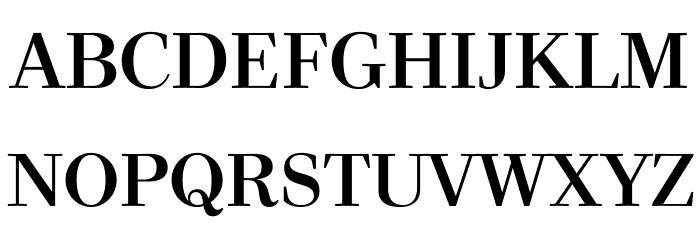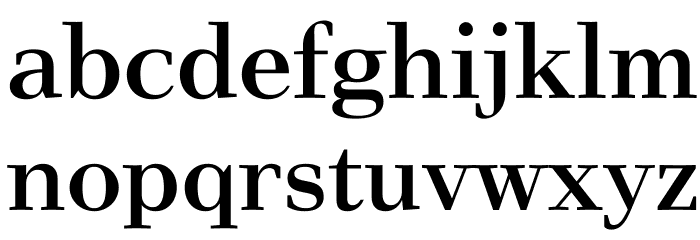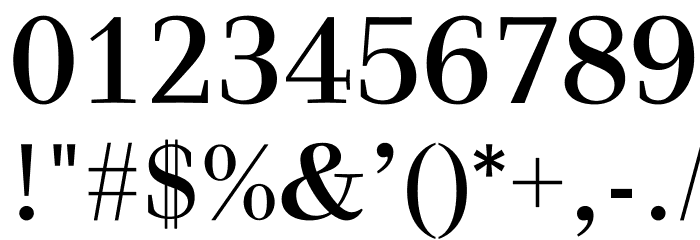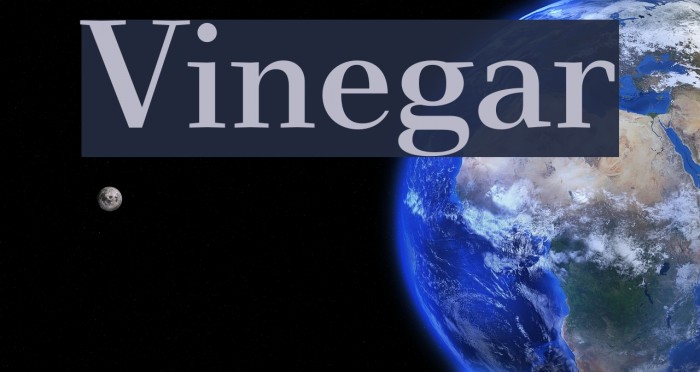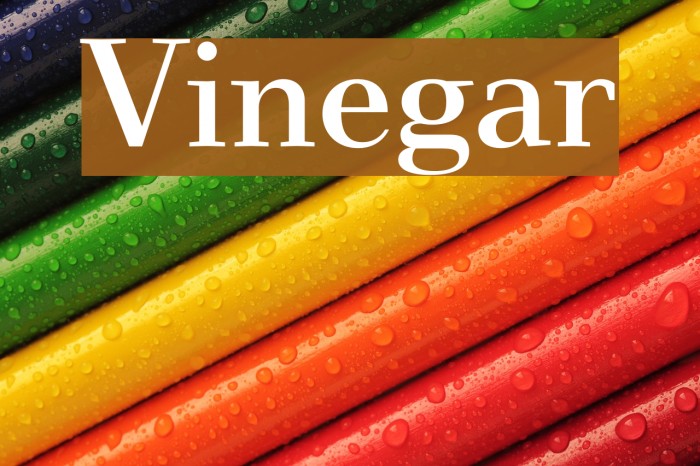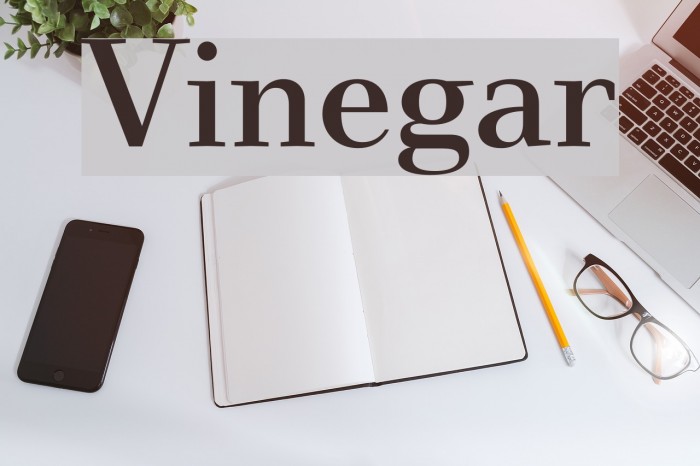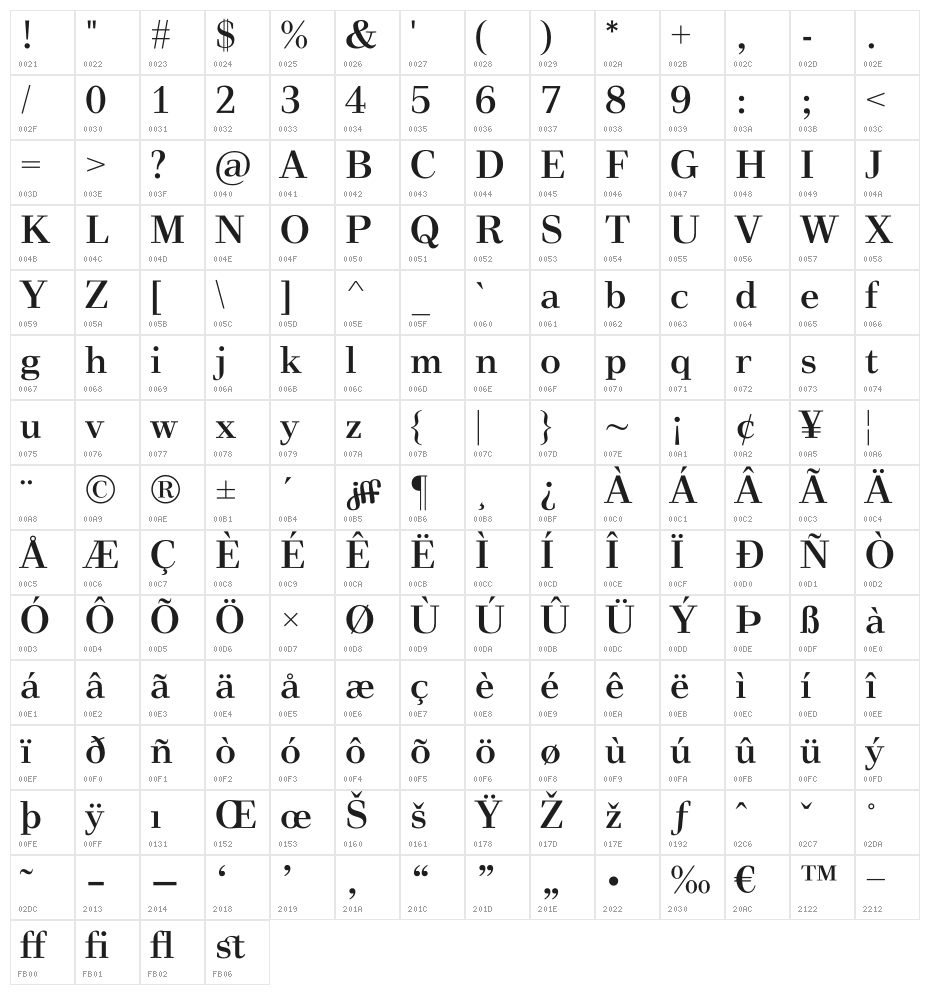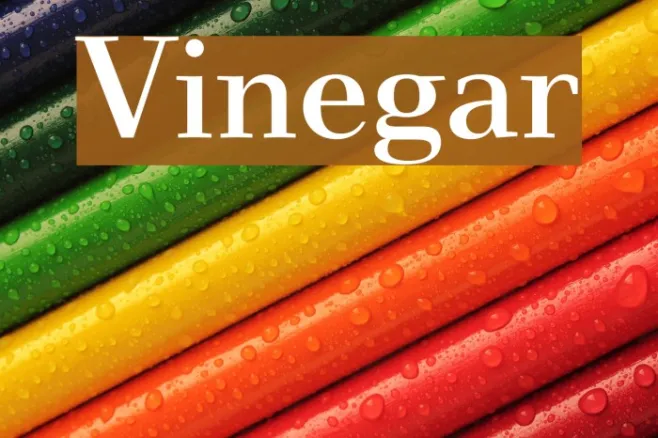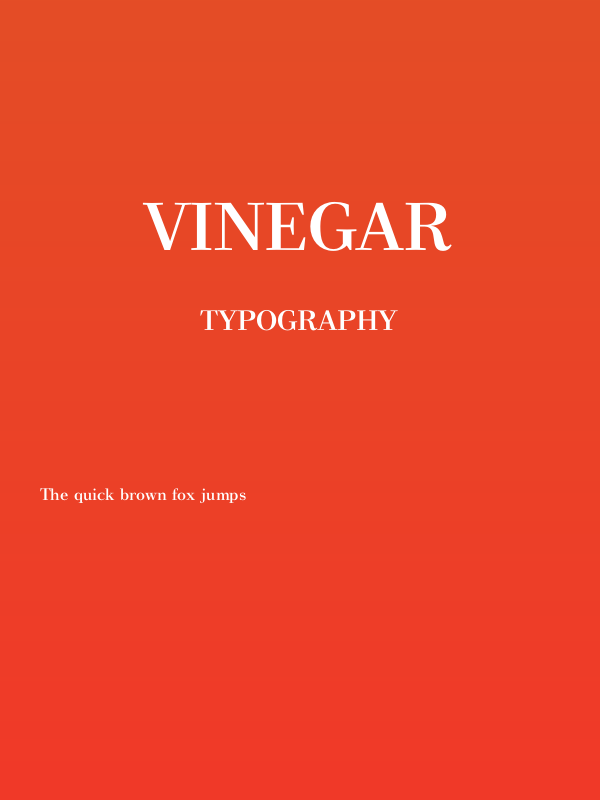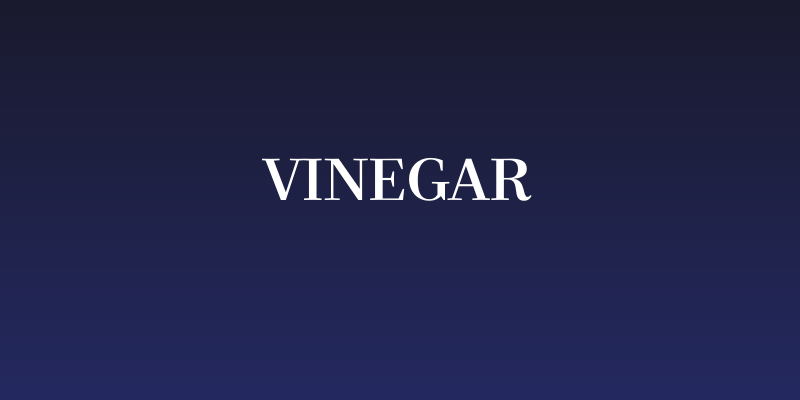
Vinegar Font
This font exhibits a classic serif style with elegant and refined strokes. The uppercase letters are bold and commanding, while the lowercase letters maintain a balanced and harmonious appearance. The numerals are clear and distinct, ensuring readability. Special characters are well-integrated, matching the overall aesthetic. The font's high contrast between thick and thin strokes adds a sophisticated touch, making it suitable for formal and professional applications. Its timeless design is versatile, lending itself well to a variety of uses.
A classic serif font with high contrast and elegant strokes.
- Proposed Projects: Ideal for editorial design, book covers, formal invitations, and branding materials.
- Category: Serif
- Overall Style: Classic